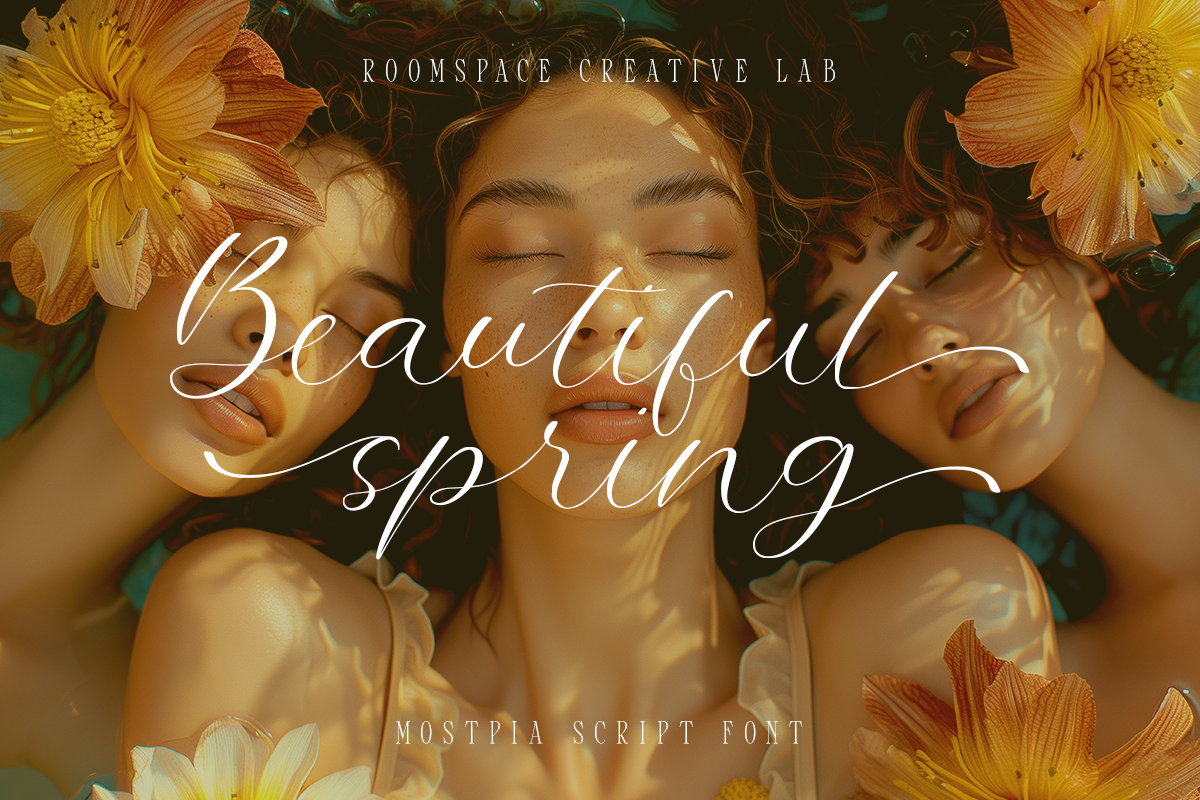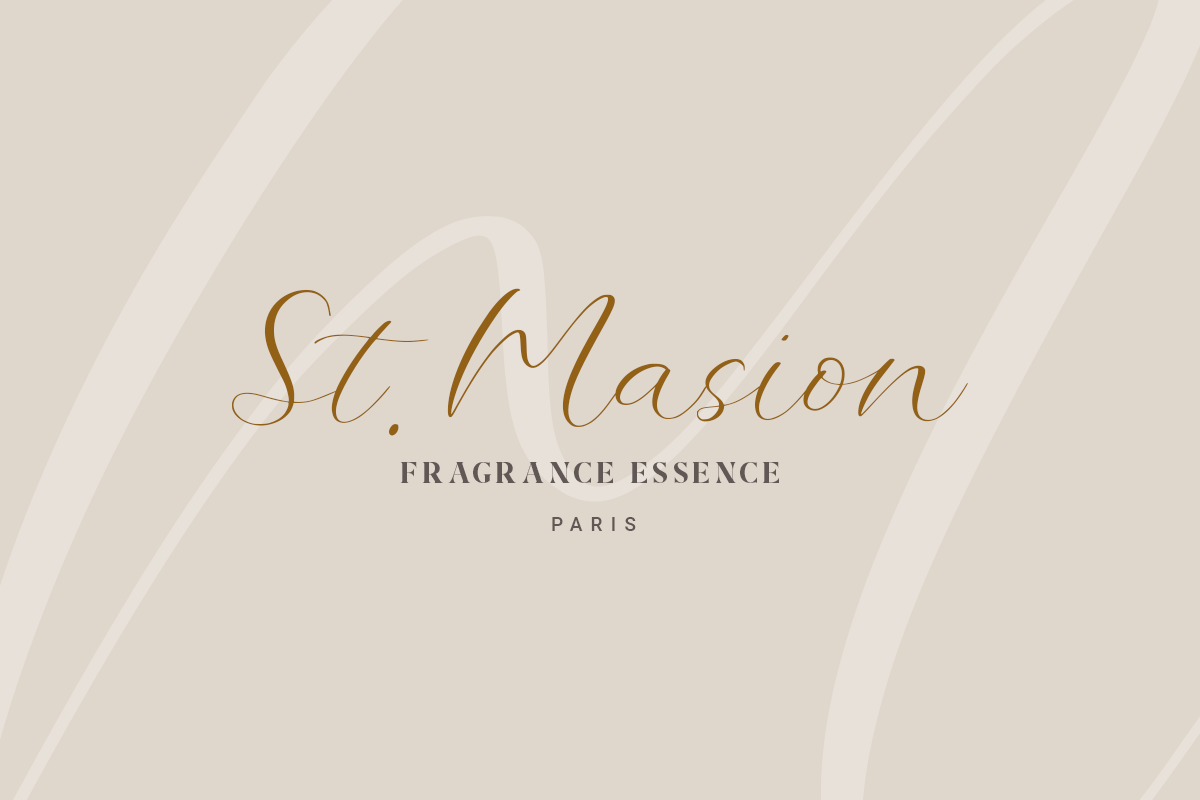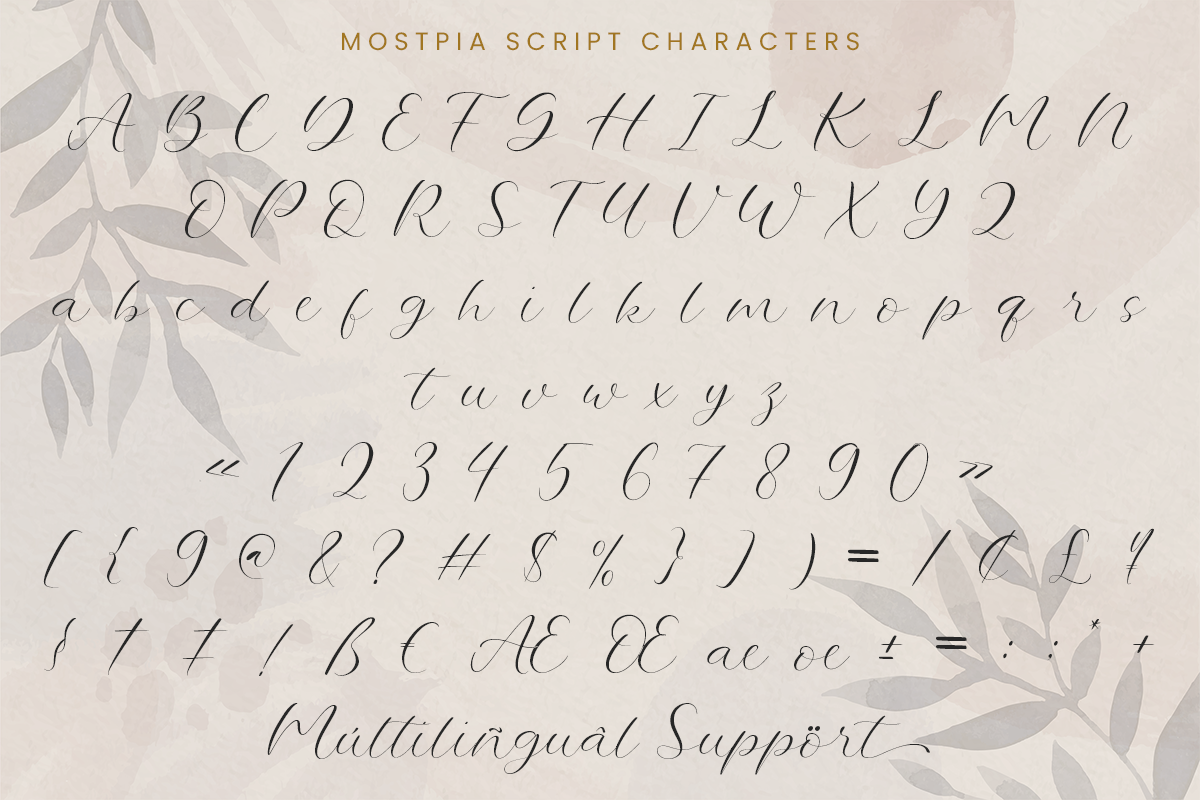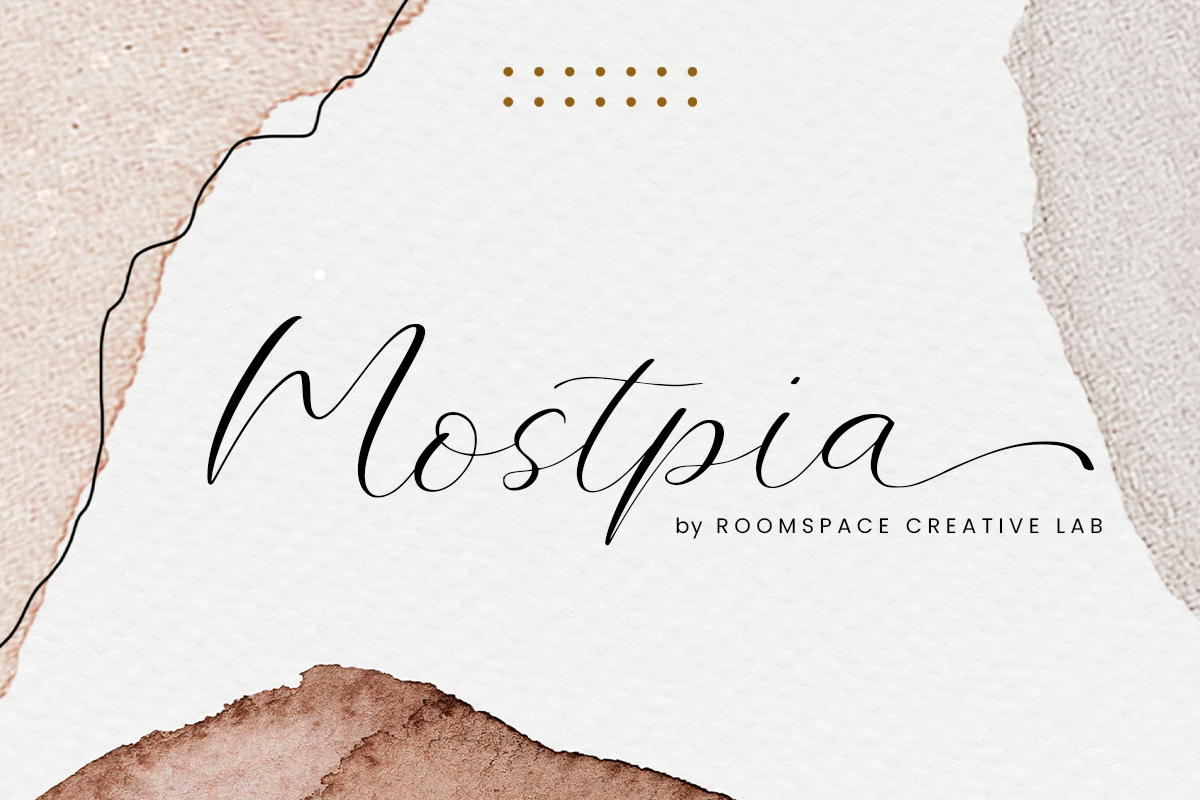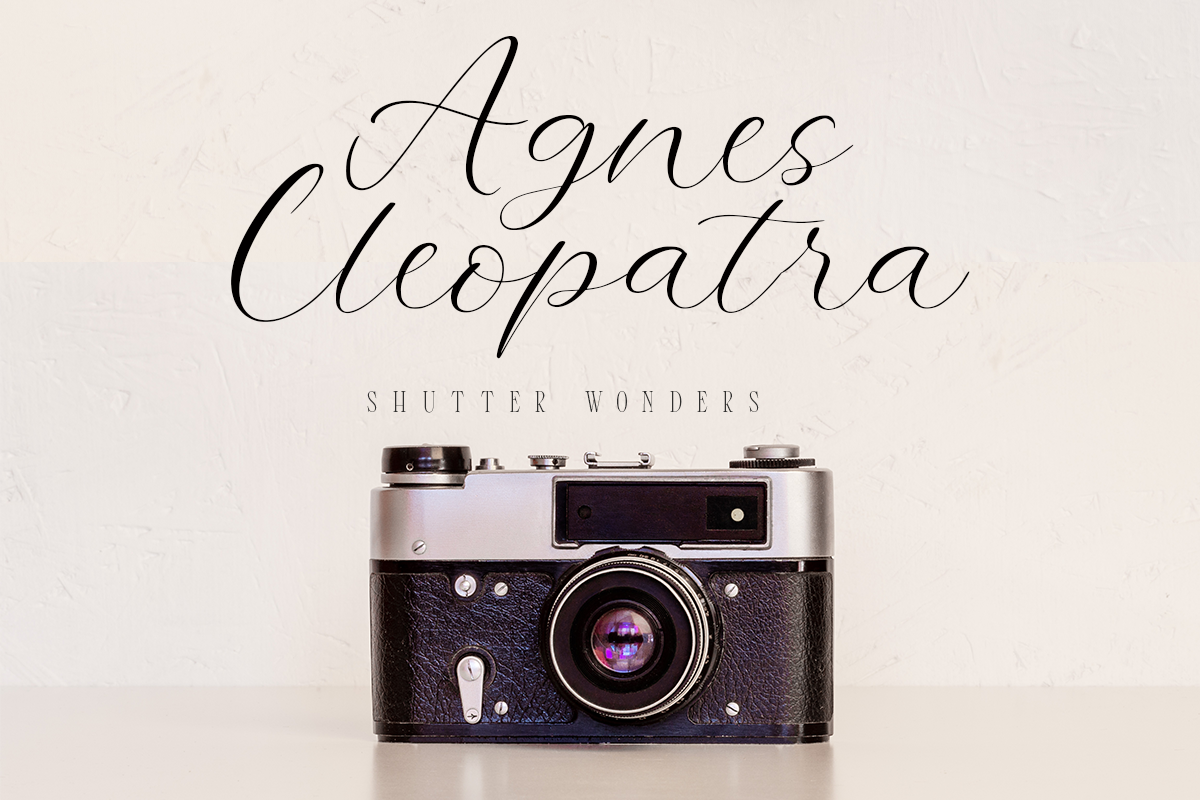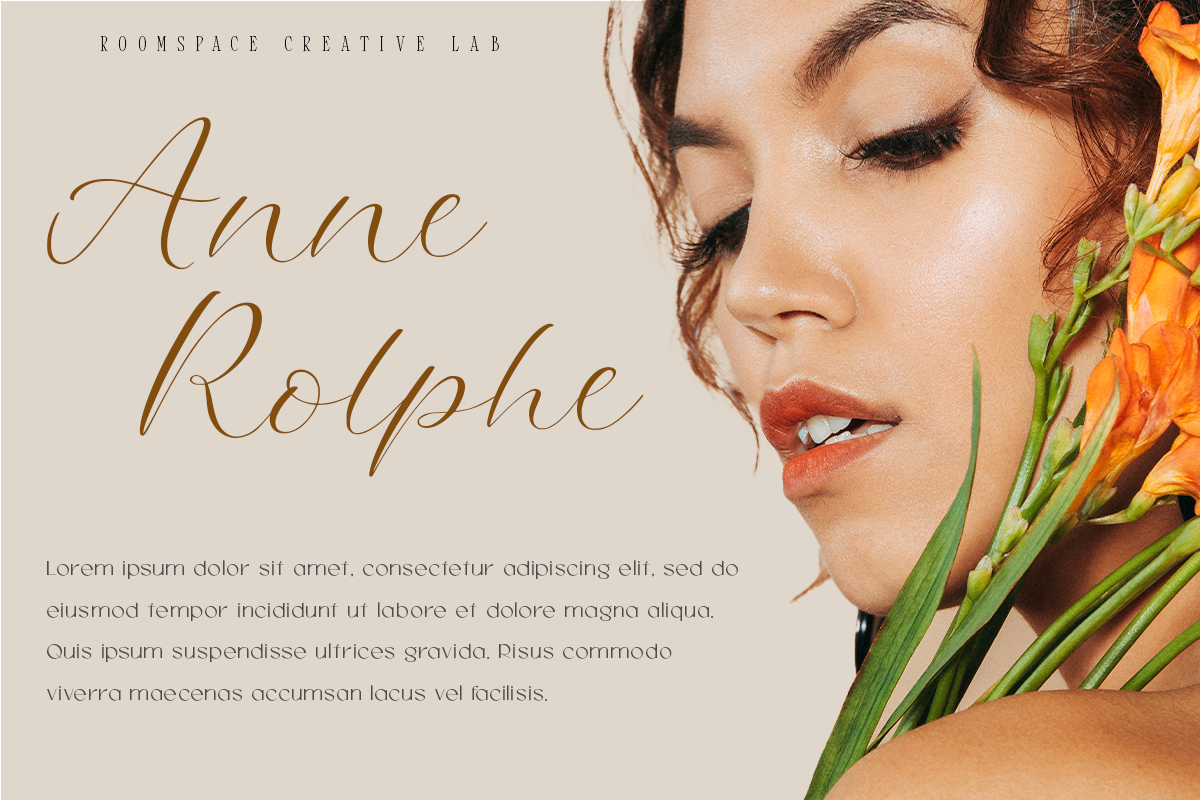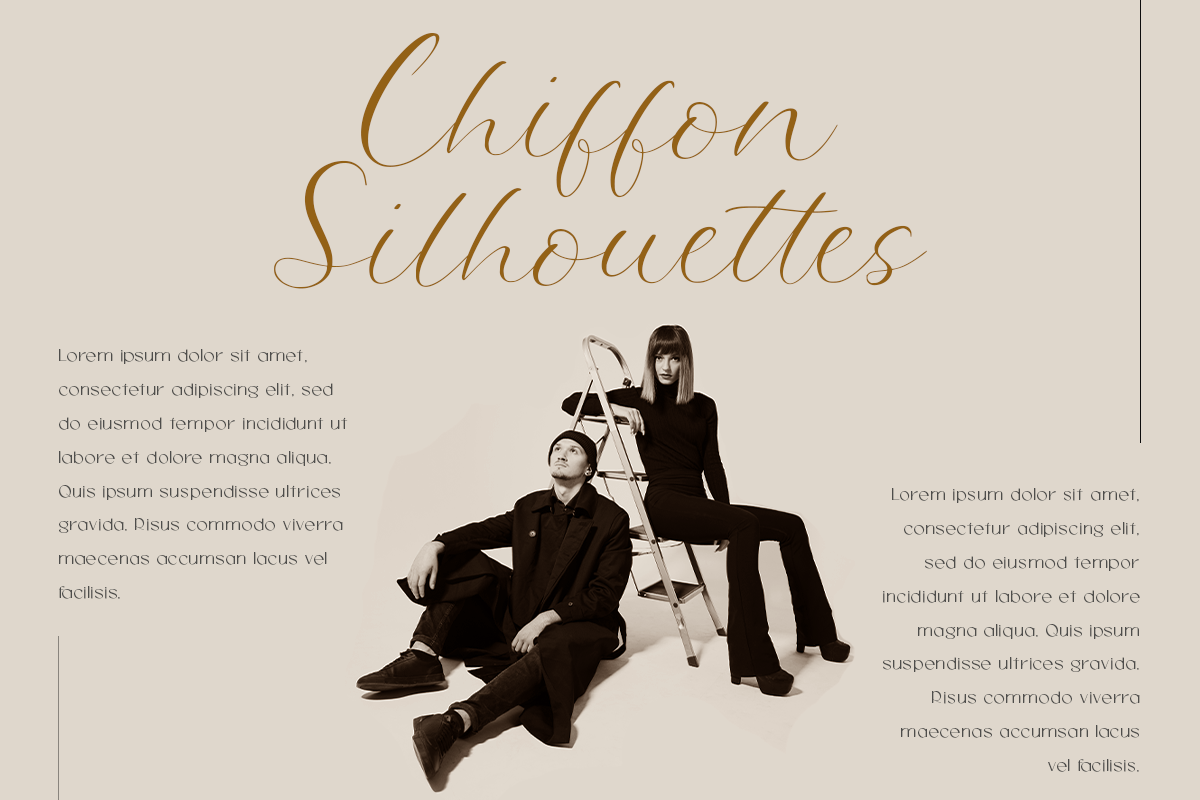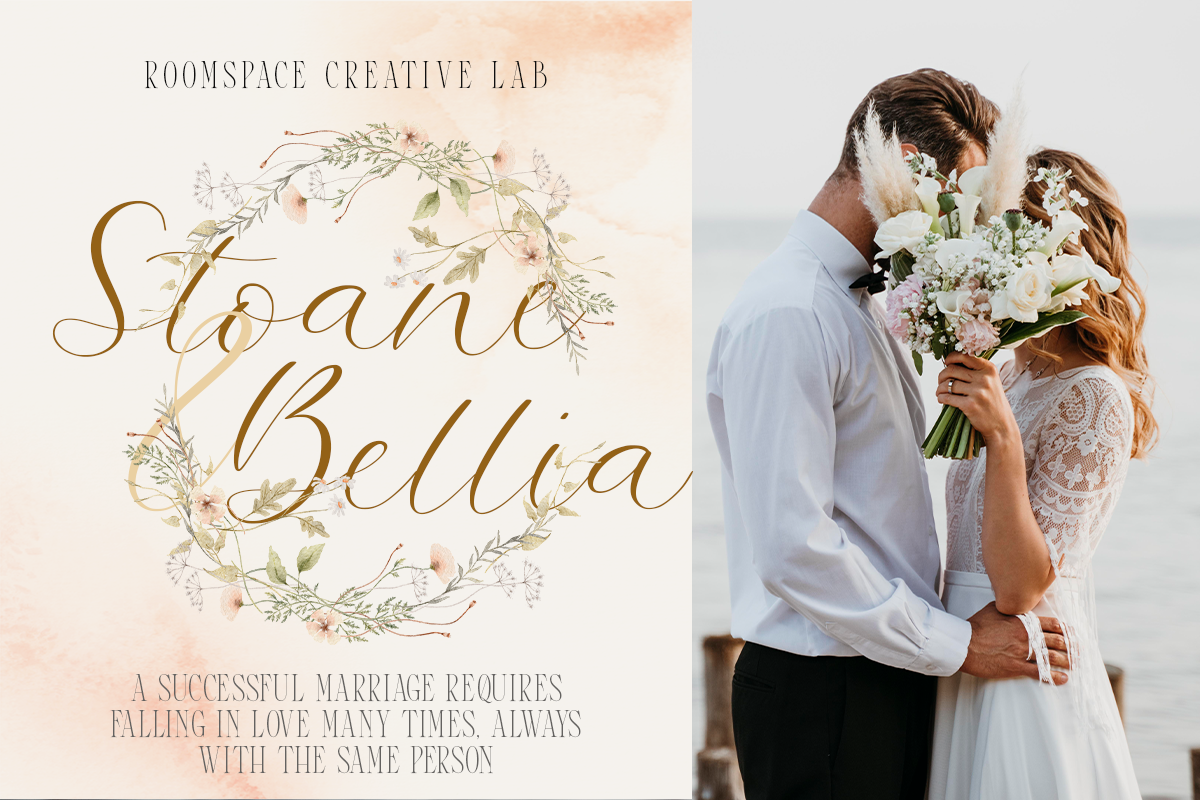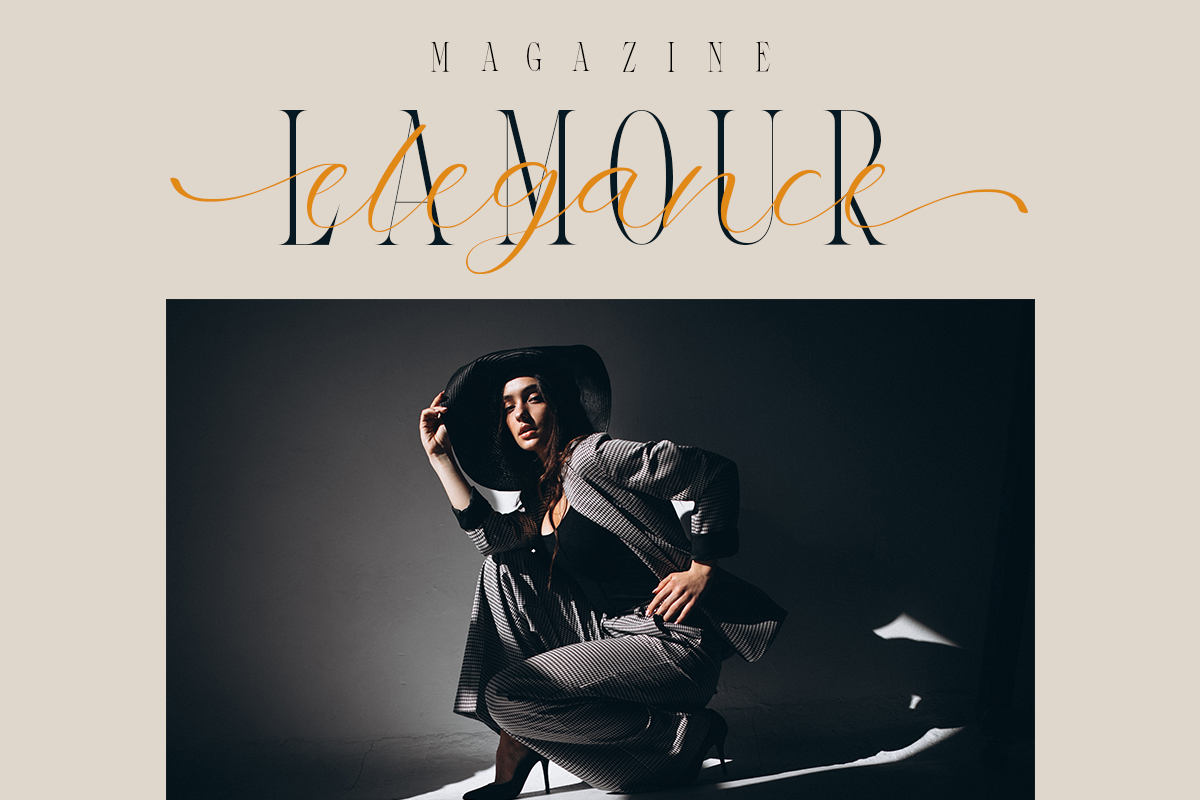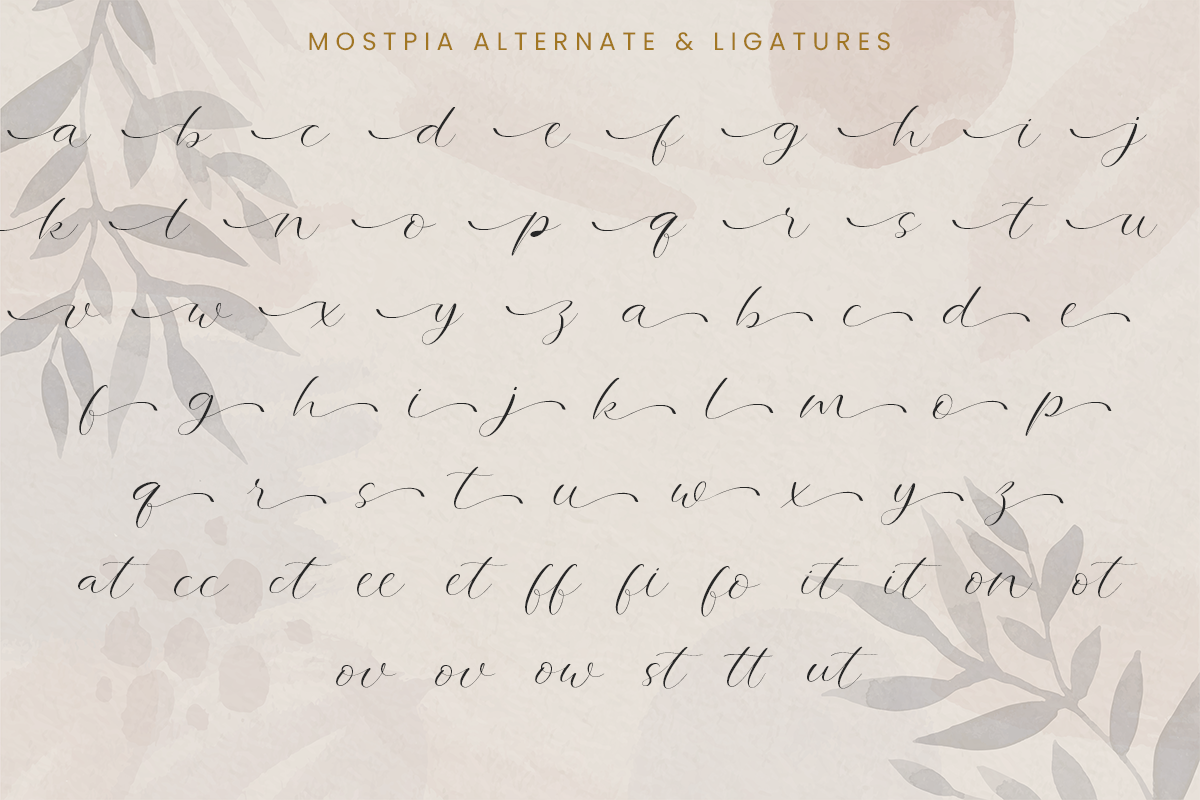
Mostpia - Elegant Handwritten Script
Mostpia - Elegant Handwritten Script is a beautifully elegant handwritten script font designed by the creative minds at Roomspace Creative Lab. Mostpia brings a unique blend of sophistication and warmth, perfect for elevating any design project. Whether you’re crafting wedding invitations, creating a brand identity, designing social media graphics, or adding a touch of elegance to home decor, Mostpia delivers with style and grace.
This font is characterized by its fluid, graceful strokes and charming curves, making it both highly legible and aesthetically pleasing. Each letter has been carefully crafted to maintain a harmonious and natural flow, ensuring your text looks stunning in any context. Mostpia comes with a full set of uppercase and lowercase letters, numerals, punctuation marks, and a variety of ligatures to enhance the authenticity of your designs.
Mostpia isn't just about good looks—it's also highly functional. It supports multiple languages, allowing you to reach a global audience with ease. The versatility of Mostpia makes it an excellent choice for a wide range of applications, from formal wedding stationery to modern branding and everything in between.
Embrace the timeless beauty and versatility of Mostpia, and watch your designs come to life with an elegant, personal touch. Perfect for creative professionals, designers, and anyone looking to add a sophisticated script to their font collection, Mostpia is a must-have for your font design library.
Fonts Features :
- Alternate Swash